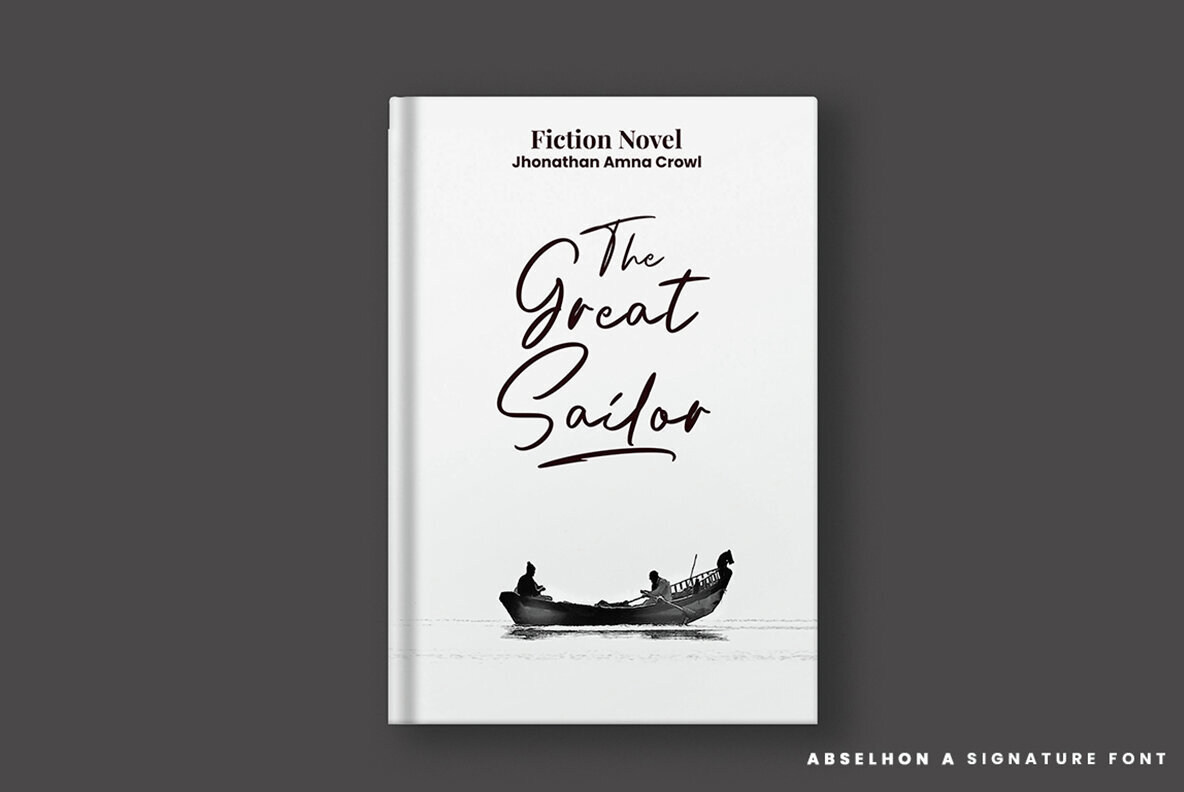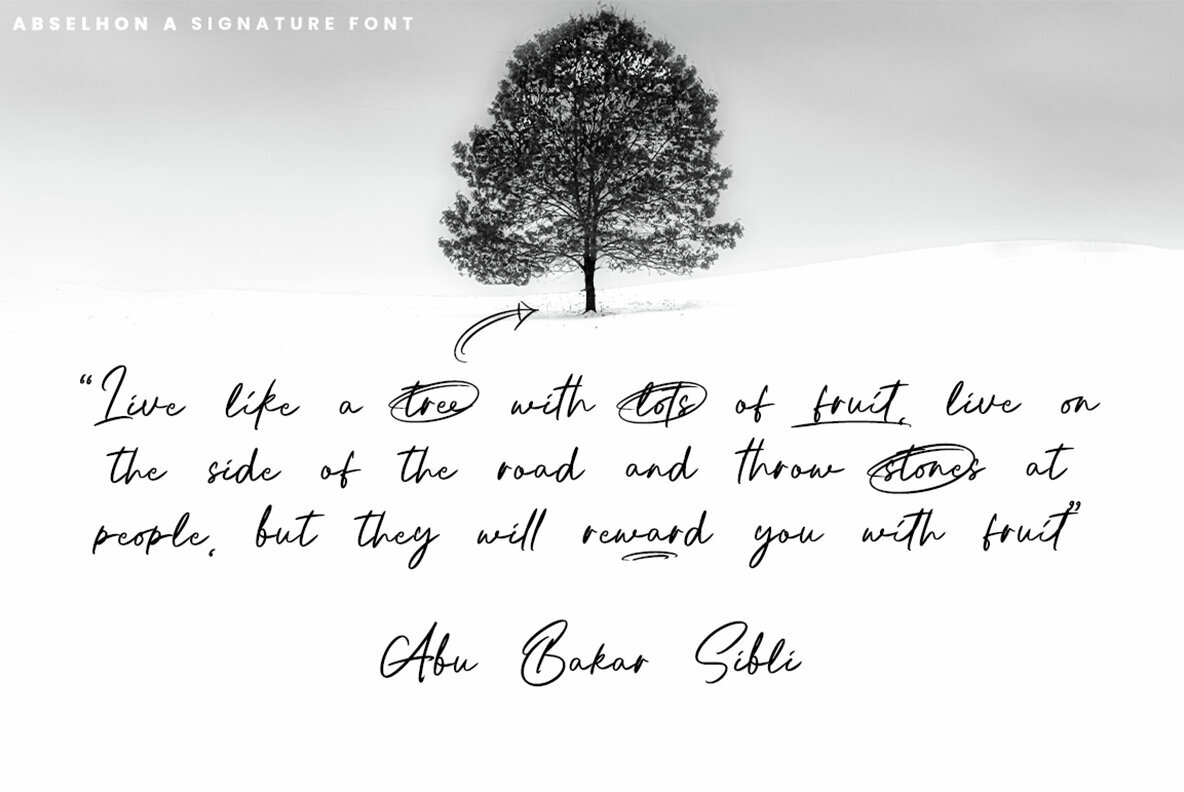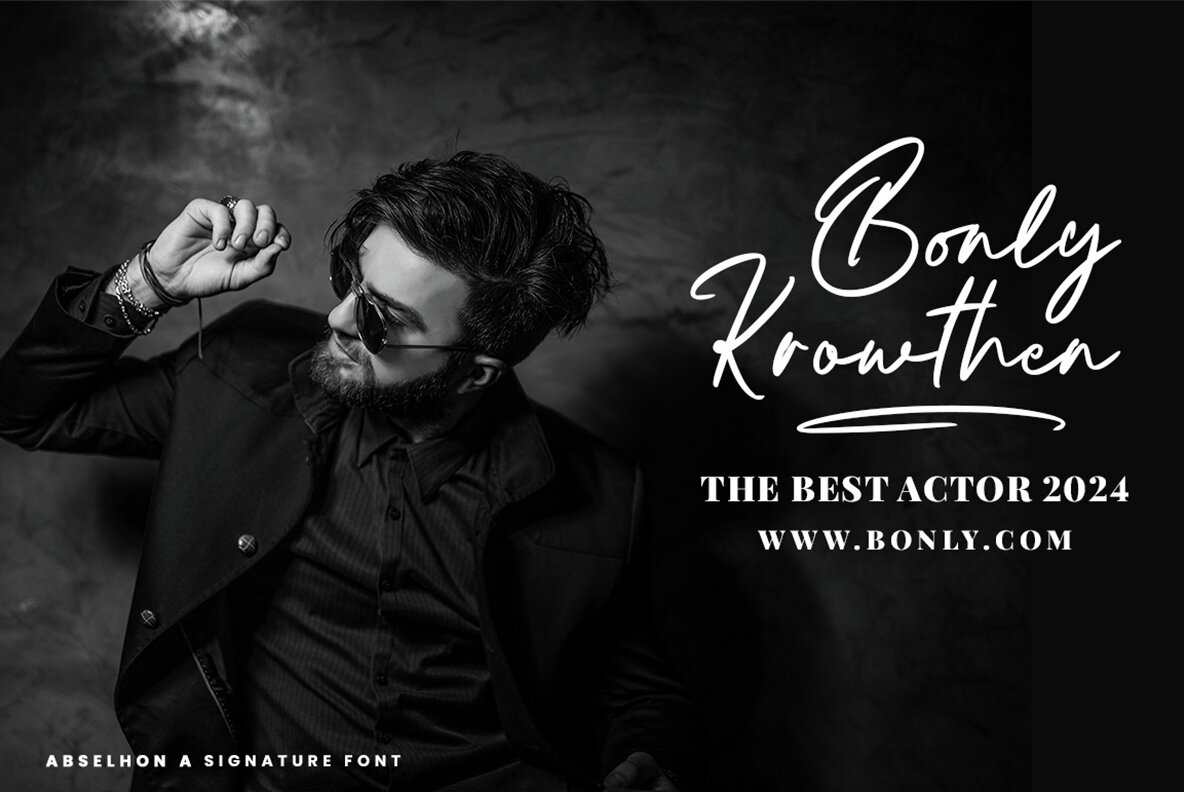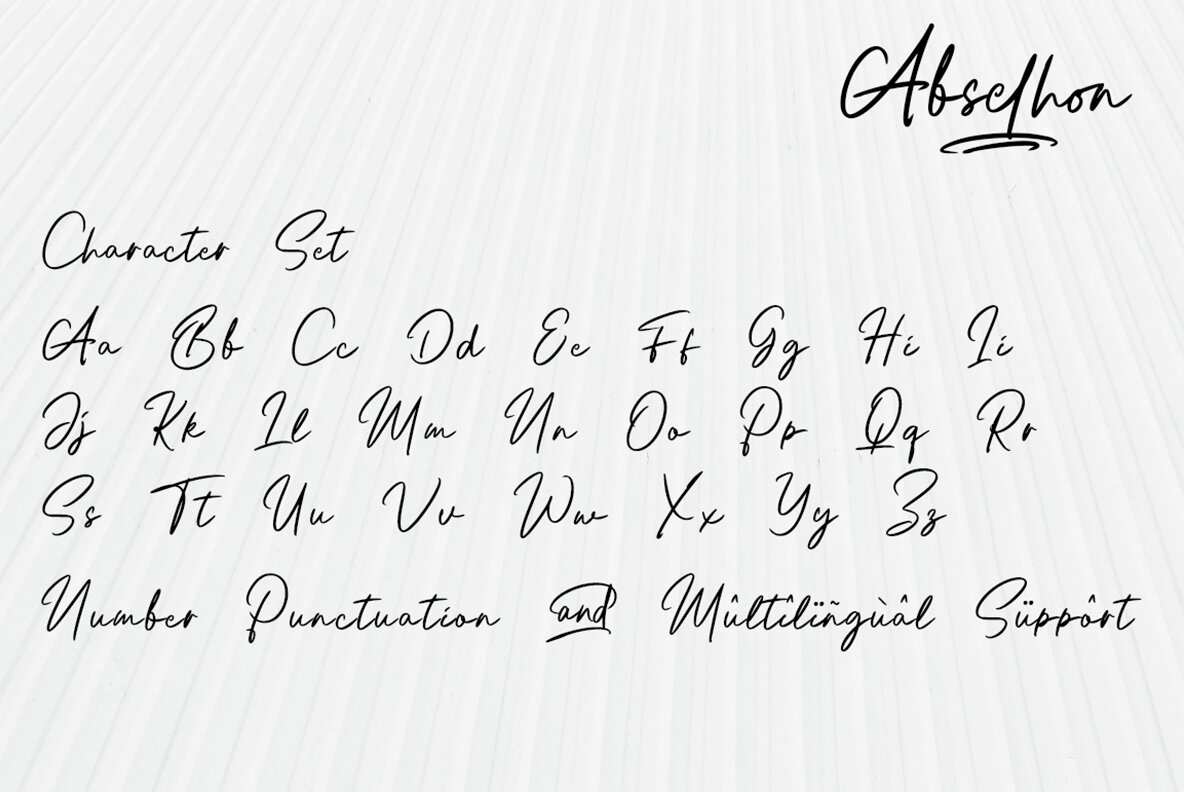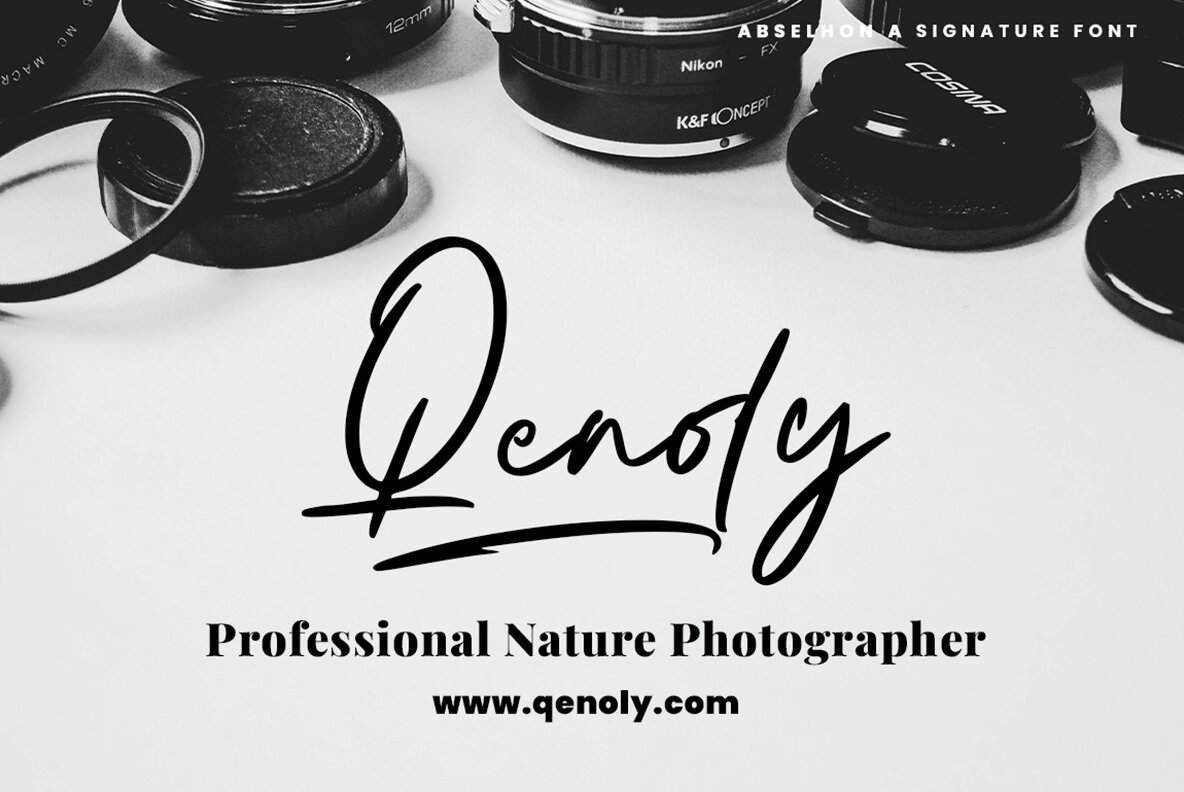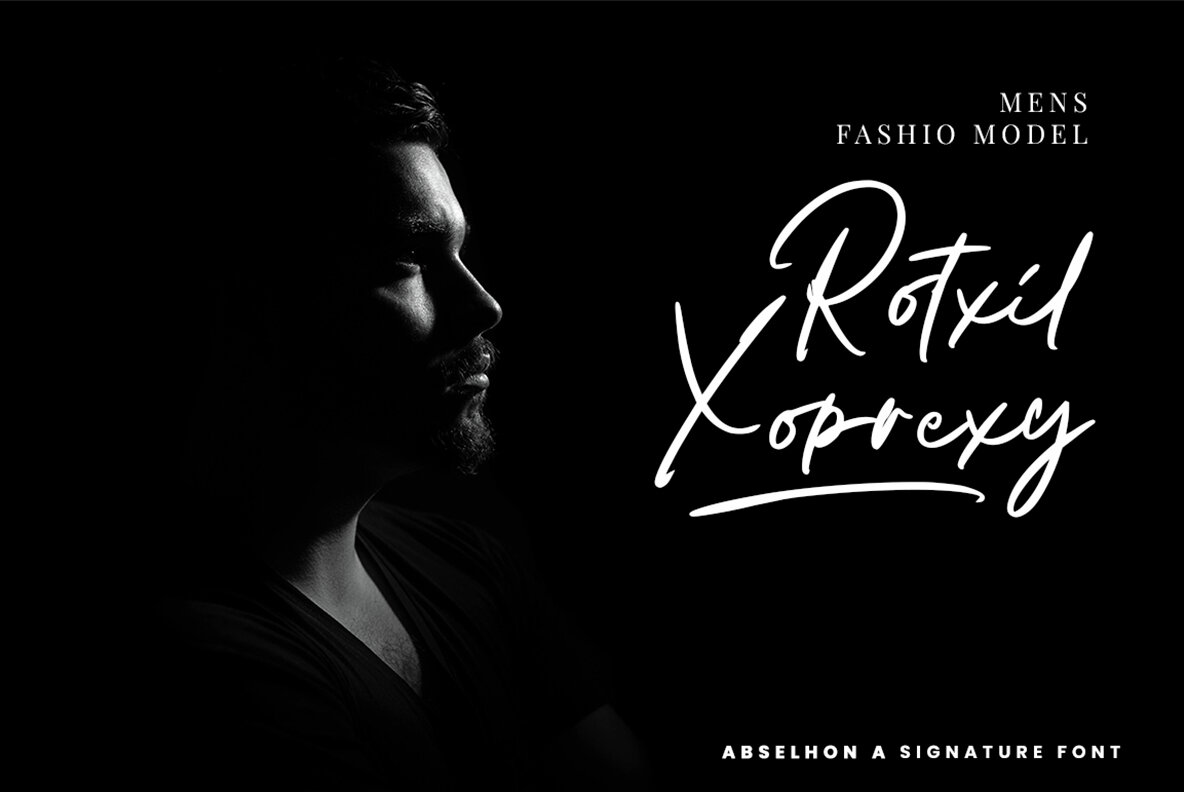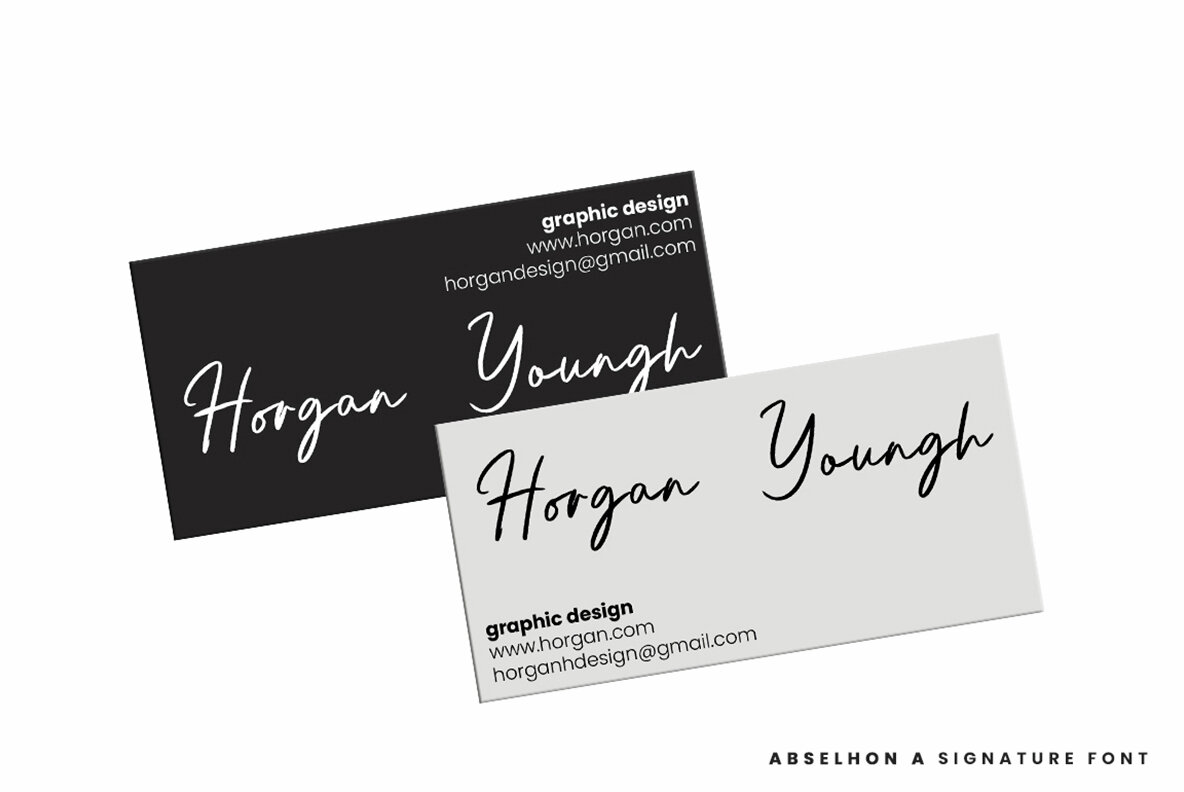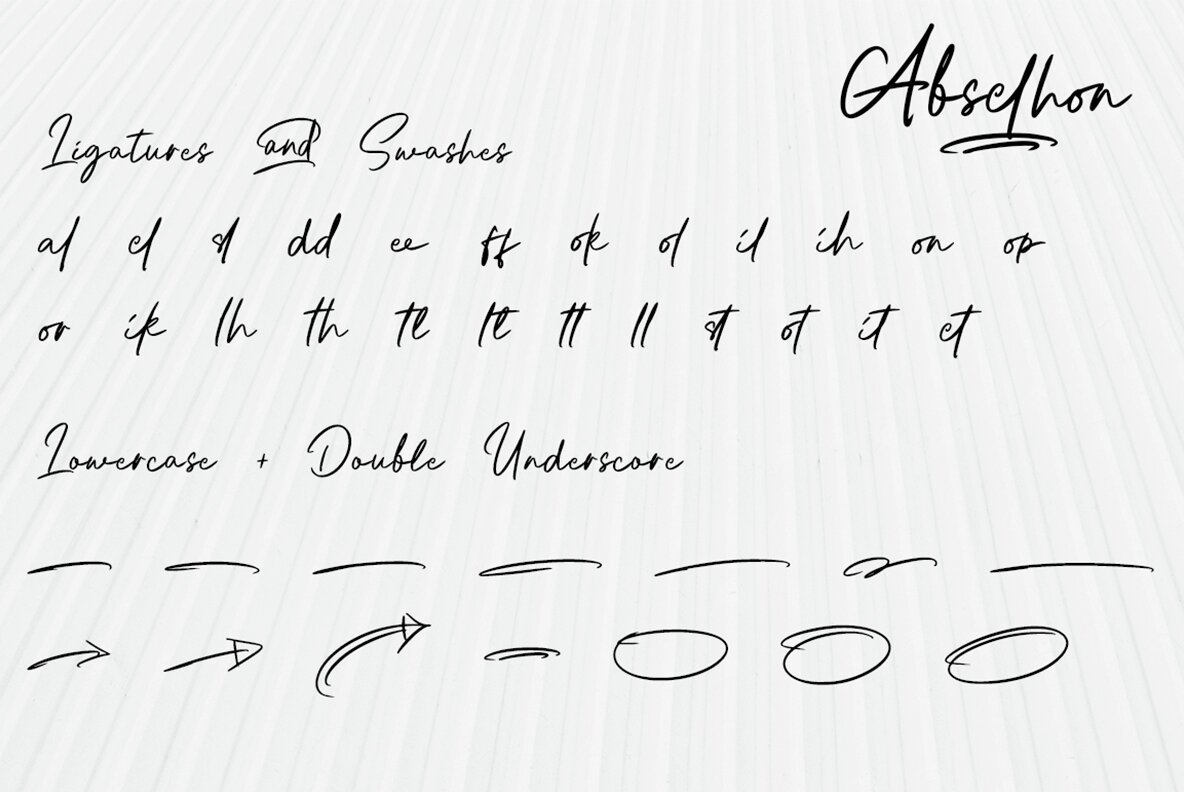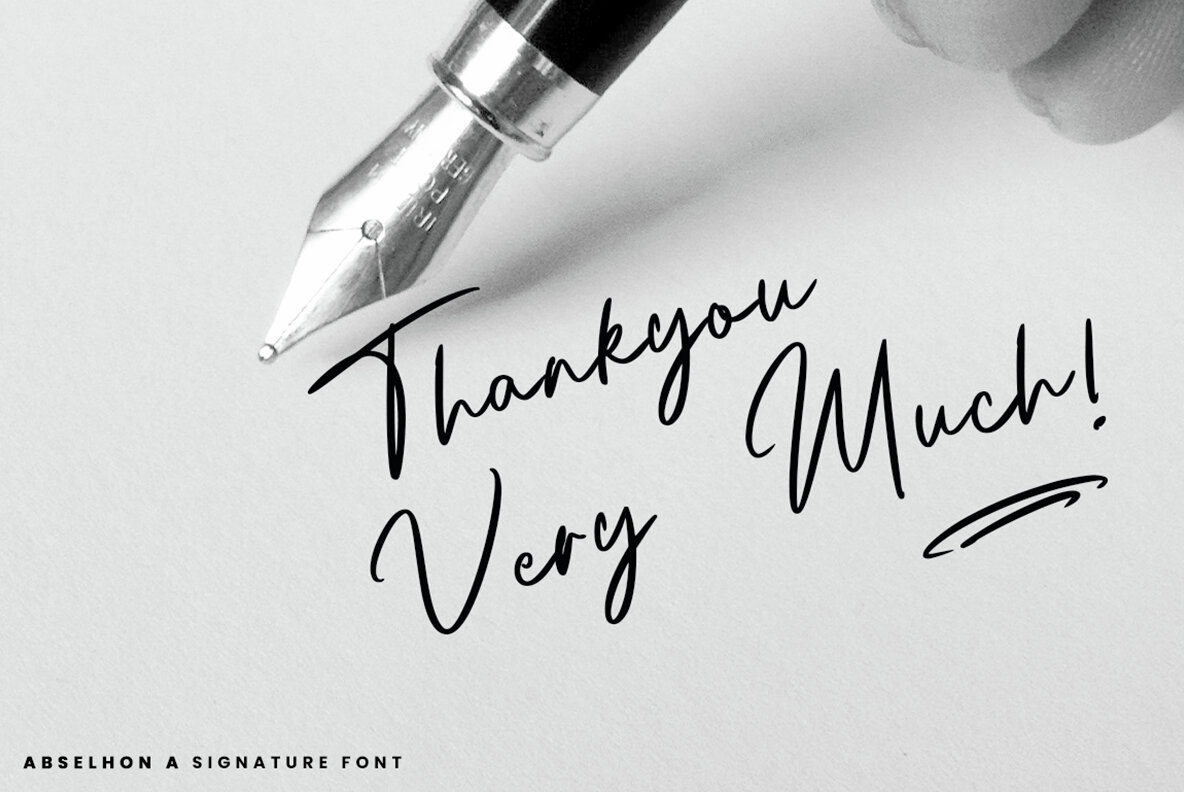
Abselhon Font
Abselhon Regular
This font is a contemporary script typeface that offers a personal and feminine touch to any project. It is characterized by its fluid, expressive strokes that mimic the nuances of hand-written calligraphy, combined with legible letterforms that make it versatile for both print and digital media. Its elegance and style make it ideal for invitations, branding, and advertising projects where a touch of sophistication is desired.